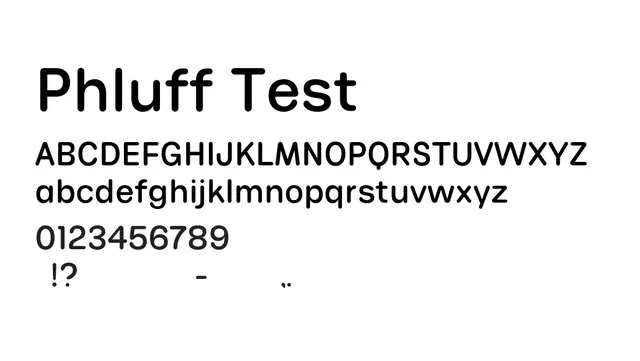
Phluff Test
Phluff Test, modern, clean
Geometric sans-serif with rounded character forms, offering a friendly yet contemporary feel suitable for digital interfaces.
Ideal for UI elements and headlines in SaaS and tech products. The rounded geometry conveys approachability while maintaining professional neutrality.
Pairs well with a more traditional humanist sans like Inter for body text balance.